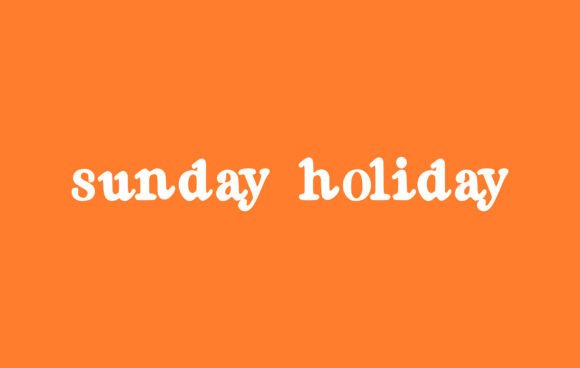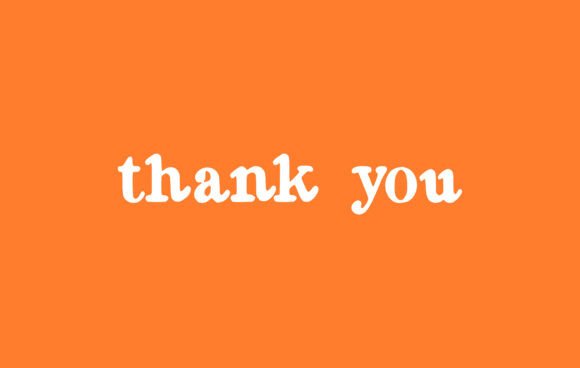
Discover the Charm of Frontier Hand Font: Elevate Your Creative Projects
Are you a designer, crafter, or DIY enthusiast looking for a unique and authentic font to add a romantic touch to your creative projects? Look no further than the Frontier Hand Font. This beautifully designed font is sure to capture your heart and take your creative ideas to new heights.
What is Frontier Hand Font?
Frontier Hand Font is a handcrafted font that exudes a sense of romance and elegance. Its authentic design makes it perfect for a wide range of creative projects, from handmade crafts and DIY tutorials to branding and marketing materials. With its unique character and charm, this font is sure to stand out from the crowd.
Key Features of Frontier Hand Font
• Authentic Design: Frontier Hand Font is designed to look like it was written by hand, giving it a personal and authentic touch.
• Romantic Touch: This font has a romantic and elegant feel to it, making it perfect for projects that require a touch of sophistication.
• Versatile: Frontier Hand Font can be used for a wide range of creative projects, from crafting and DIY tutorials to branding and marketing materials.
• Easy to Read: Despite its handcrafted design, Frontier Hand Font is easy to read and understand, making it perfect for body text and headlines.
Uses of Frontier Hand Font
Frontier Hand Font is a versatile font that can be used for a wide range of creative projects, including:
• Handmade Crafts: Use Frontier Hand Font to add a personal touch to your handmade crafts, such as knitting patterns, sewing projects, and paper crafts.
• DIY Tutorials: Add a romantic touch to your DIY tutorials and instructions with Frontier Hand Font.
• Branding and Marketing: Use Frontier Hand Font to create unique and eye-catching branding and marketing materials, such as logos, business cards, and brochures.
• Stationery and Invitations: Create beautiful stationery and invitations with Frontier Hand Font, perfect for weddings, birthdays, and other special occasions.
Tips for Using Frontier Hand Font
Here are some tips for using Frontier Hand Font in your creative projects:
• Use it for Headlines and Titles: Frontier Hand Font is perfect for headlines and titles, where its unique character and charm can shine.
• Pair it with Other Fonts: Experiment with pairing Frontier Hand Font with other fonts to create a unique and eye-catching combination.
• Use it for Body Text: Despite its decorative nature, Frontier Hand Font is easy to read and can be used for body text, making it perfect for longer projects like blog posts and articles.
Frontier Hand Font is a beautiful and authentic font that can add a romantic touch to your creative projects. With its unique character and charm, this font is sure to capture your heart and take your creative ideas to new heights. Whether you’re a designer, crafter, or DIY enthusiast, Frontier Hand Font is a must-have font in your collection.
Frontier Hand font is an authentic font with a romantic touch. Expertly designed to be a true favorite, this font has the potential to take your creative ideas to the highest level.